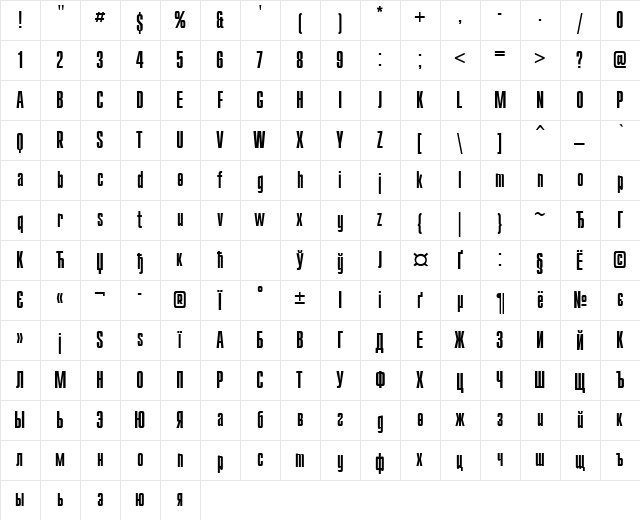
CompactCTT Regular
Design Context for CompactCTT Typeface
CompactCTT offers clean, dependable letterforms without strong stylistic allegiance, making it a practical choice for designers who need flexibility. Its narrow stance lets it pack a punch even in space-constrained designs.